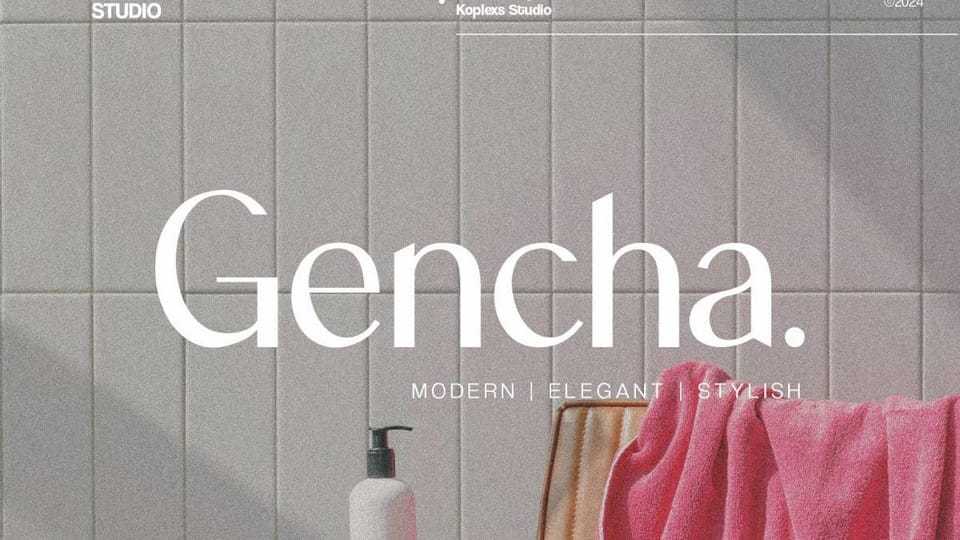
Download Gencha font, a modern sans serif typeface designed to bring elegance, clarity, and style to any project. With clean lines and refined shapes, it works perfectly for branding, logos, cosmetics,